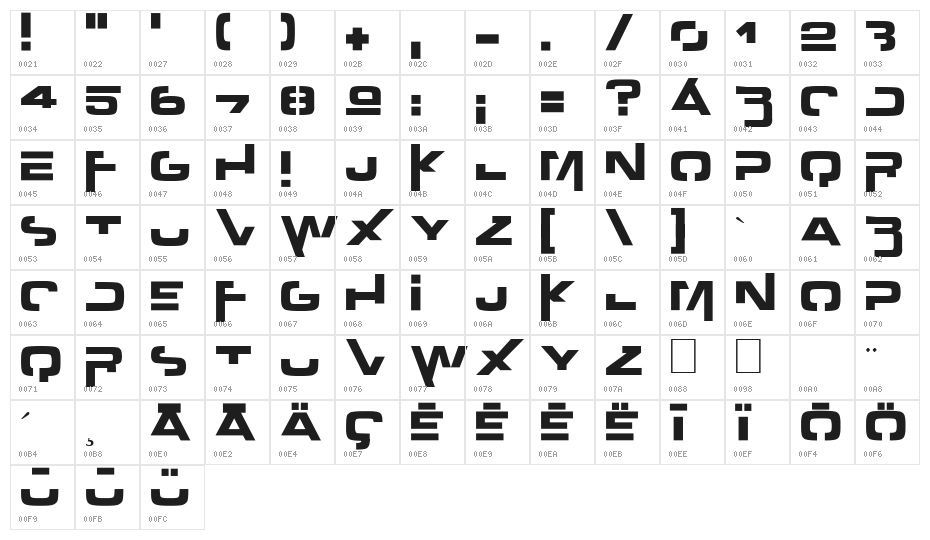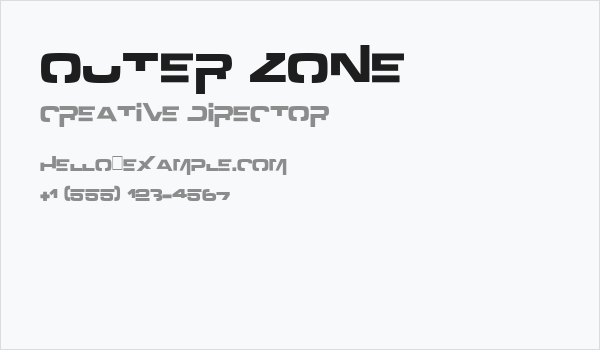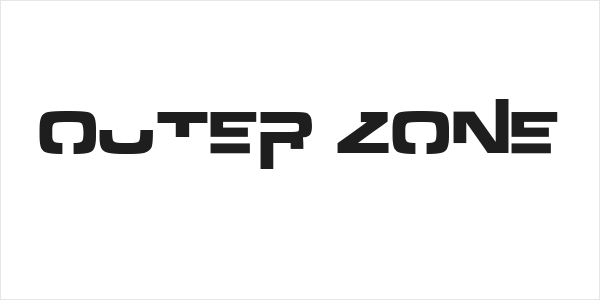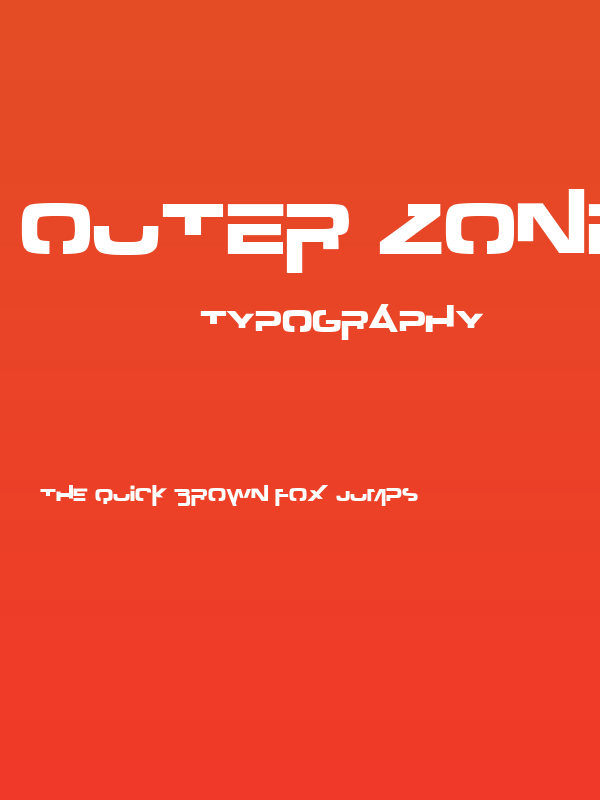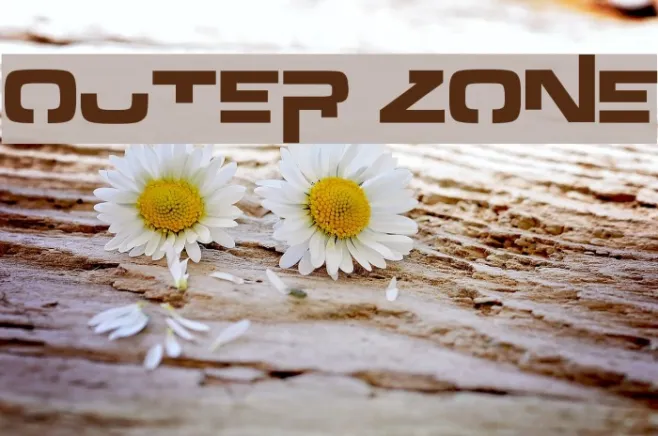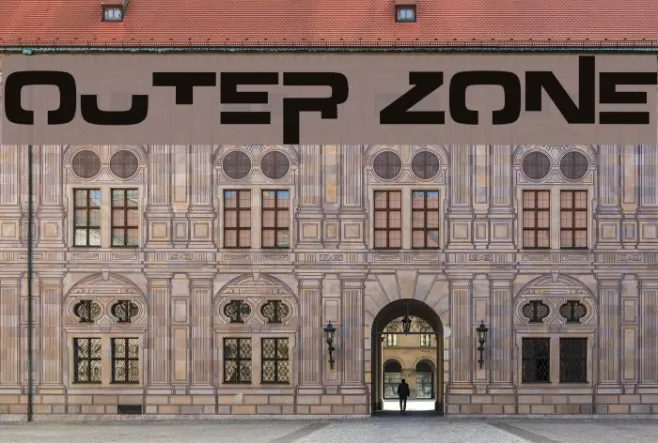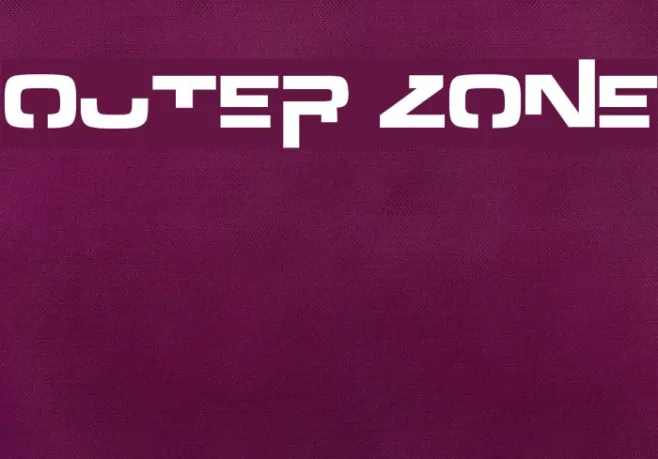
Outer zone Font
Outer zone Description
This font features a futuristic and geometric design, characterized by bold, angular shapes and a strong presence. The uppercase letters are distinct with sharp edges and unique cuts, creating a sense of movement and modernity. The lowercase letters maintain a consistent style, complementing the uppercase with similar angular forms. Numbers are bold and easily readable, following the same geometric theme. Special characters are creatively designed to match the overall aesthetic, making this font suitable for projects that require a modern and edgy look. The font's unique style makes it ideal for attention-grabbing headlines and logos.
| Proposed Projects | Ideal for sci-fi themed designs, technology branding, video game titles, and modern advertising campaigns. |